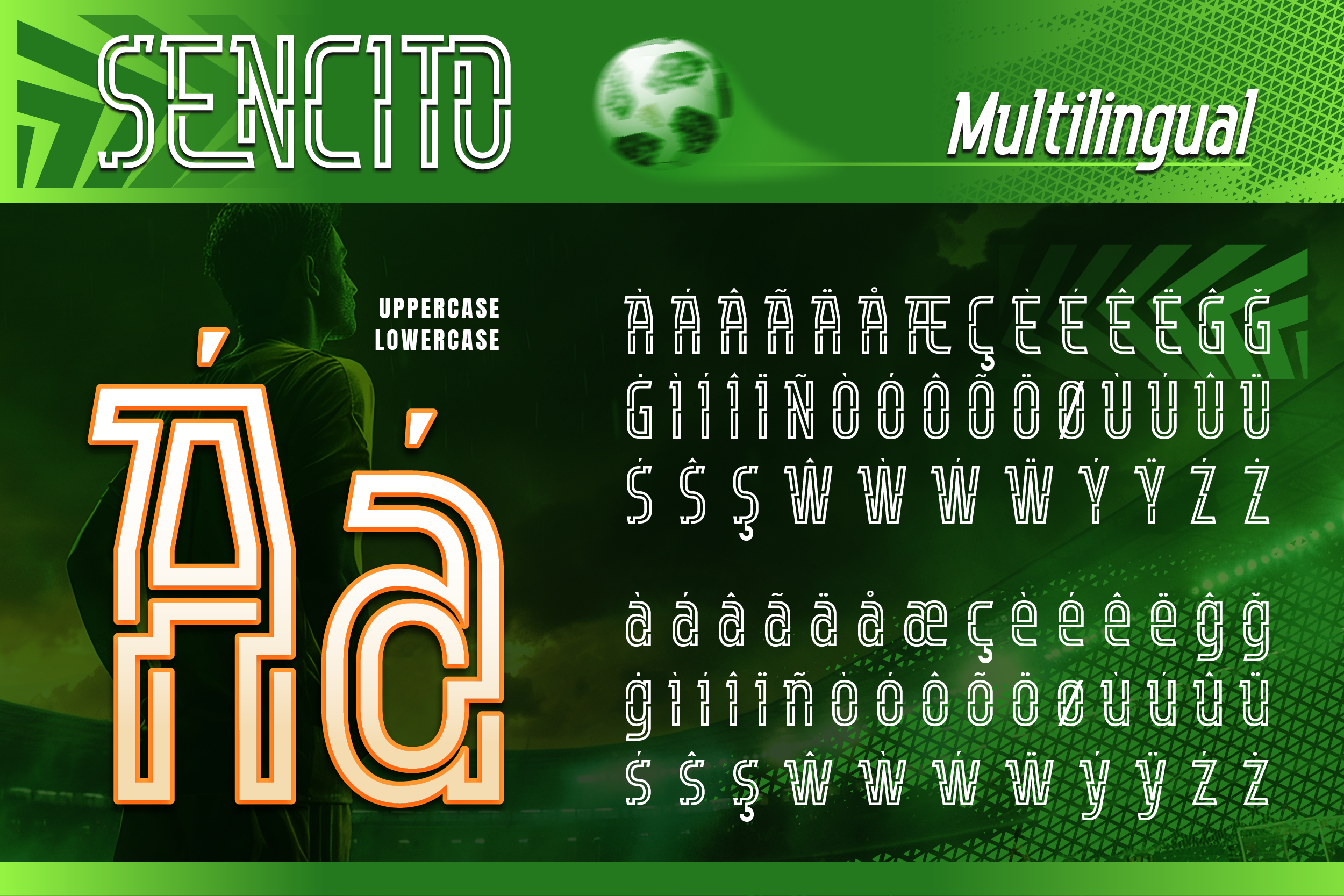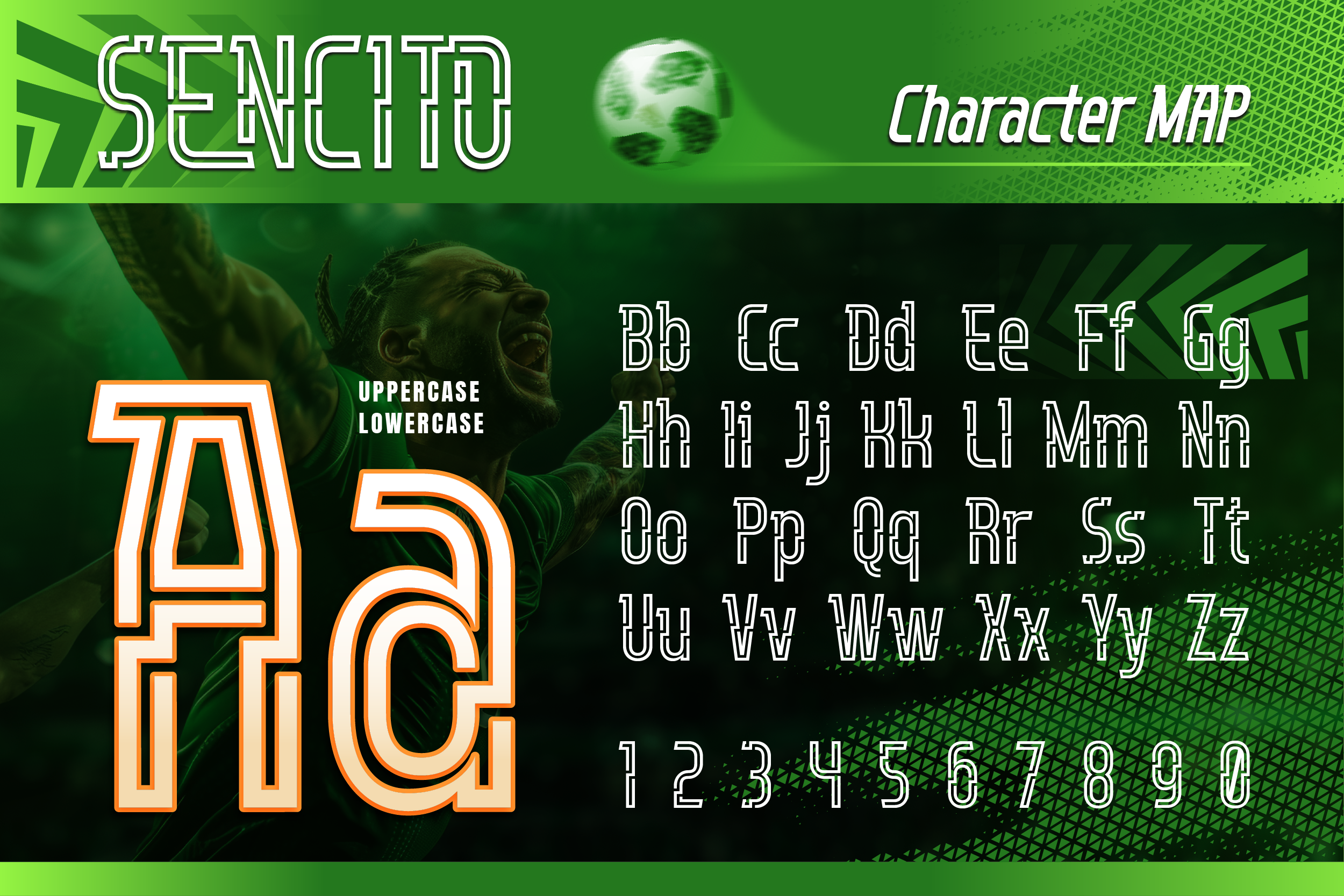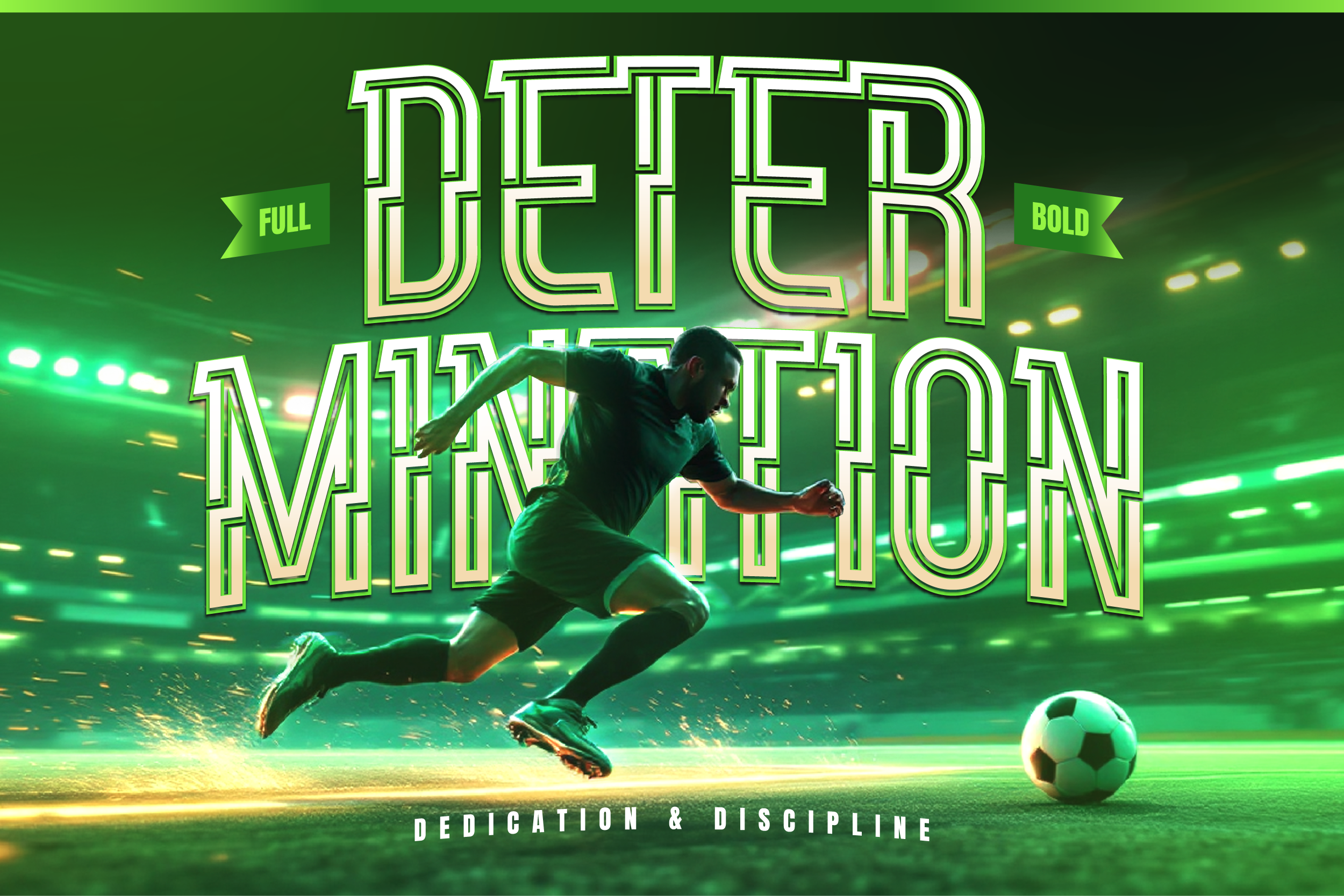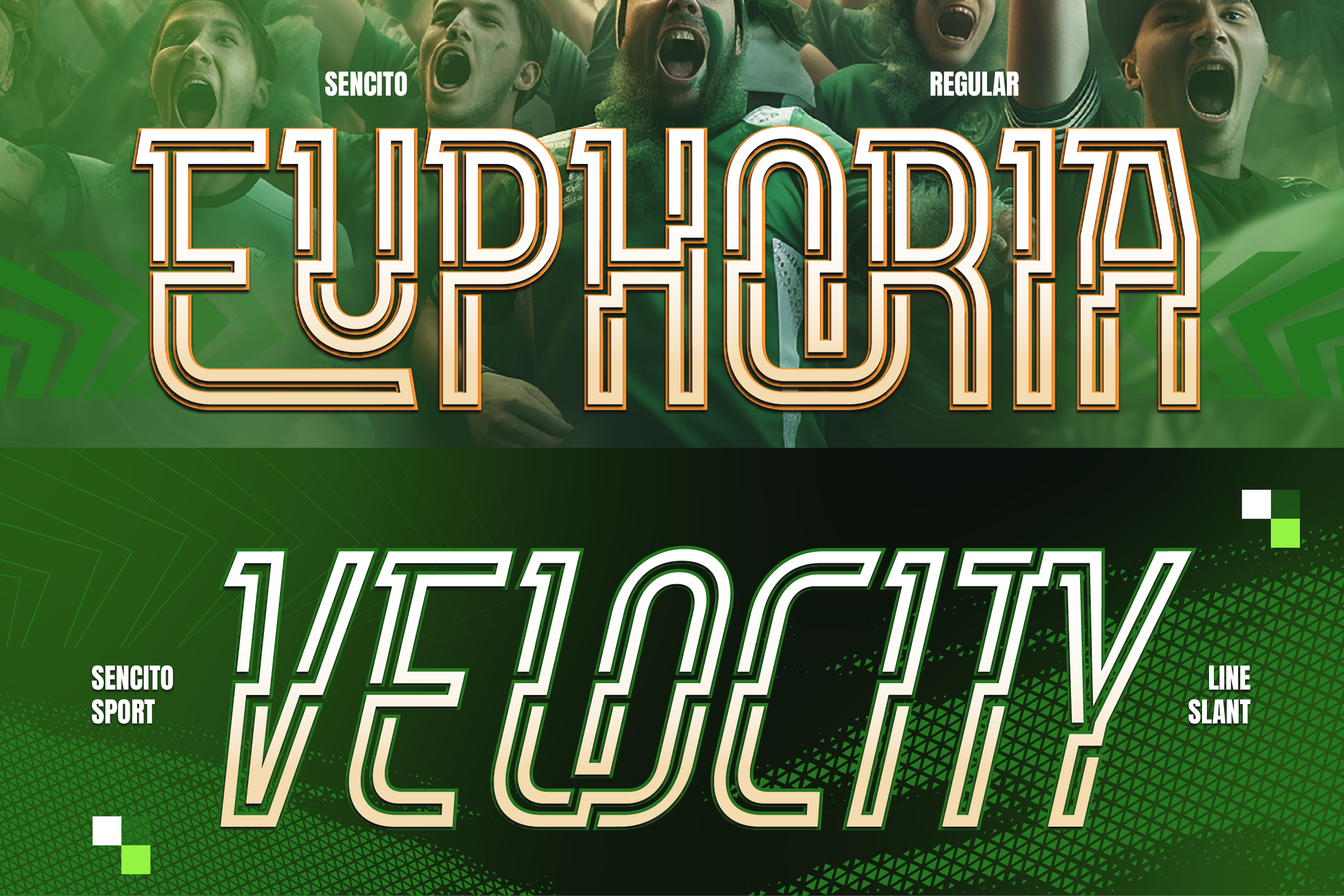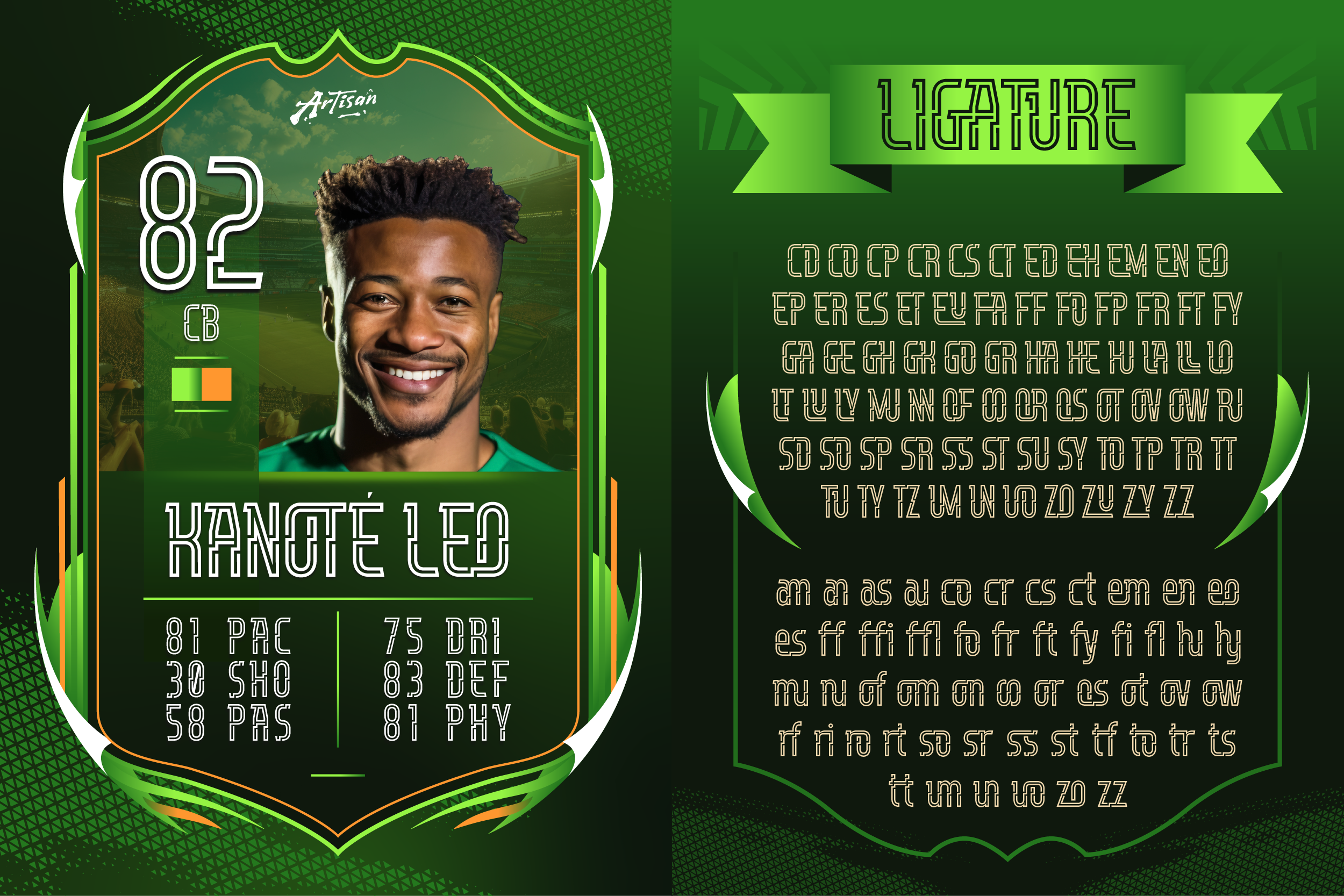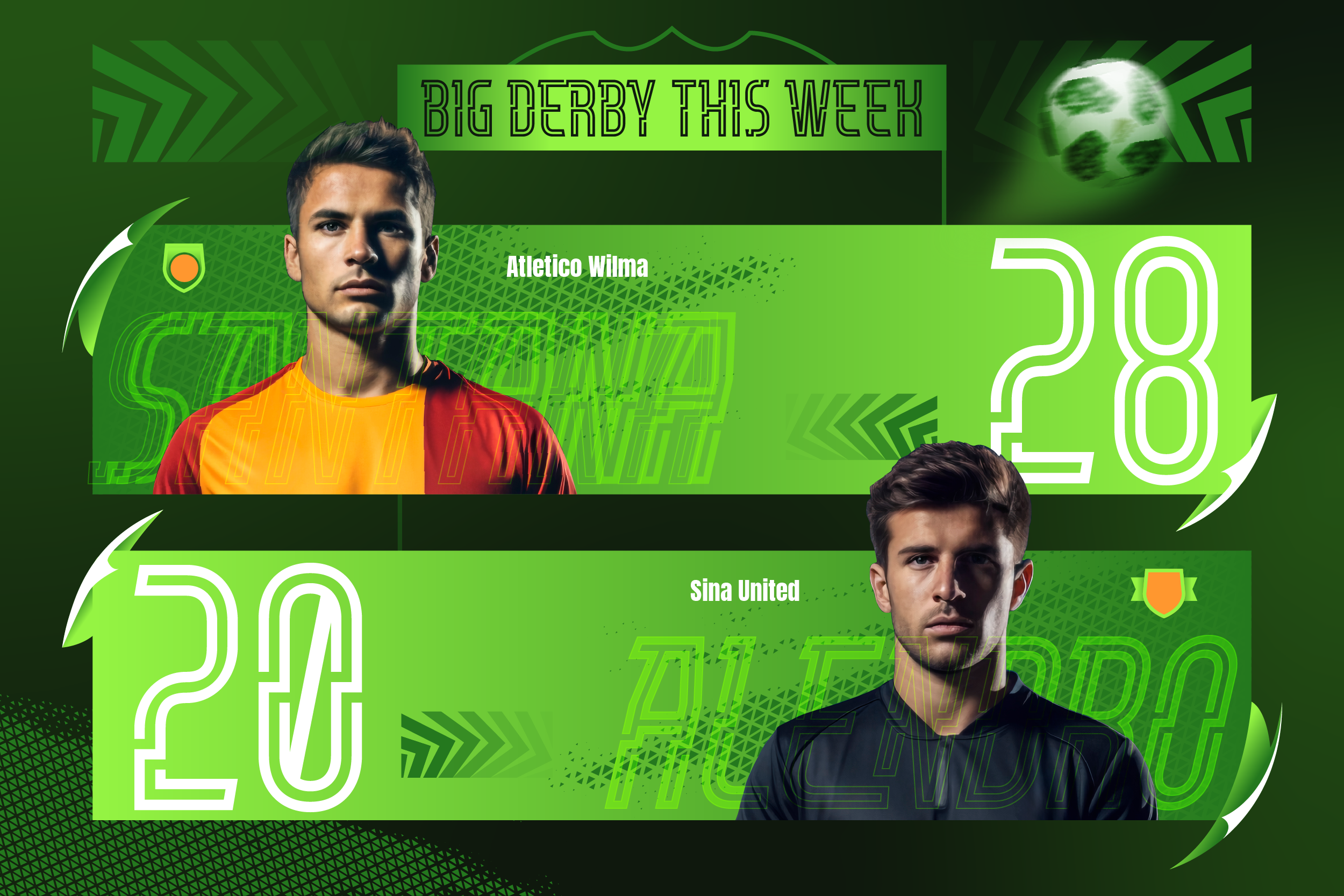
Sencito
Regular
Slant
Description
Sencito is a modern line display font designed to deliver a bold and confident visual impact. Built with clean outlines and structured letterforms, this typeface offers a strong presence while maintaining clarity and balance across every character.
Sencito features a distinctive layered line style that makes it perfect for standout headlines and eye-catching typography. With Regular and Slant styles, this font gives designers flexibility to create both stable and dynamic layouts, depending on the mood of the project. Its construction is solid, readable, and visually striking — ideal for designs that need to feel modern, sharp, and intentional.
Whether used for posters, branding, editorial layouts, packaging, or digital graphics, Sencito adapts easily to a wide range of creative needs. It works especially well for bold titles, statement text, and visual concepts that demand attention without sacrificing structure.
• A – Z set (Uppercase & Lowercase All Caps)
• Number
• Punctuation
• Alternates
• Ligatures
• Multilingual